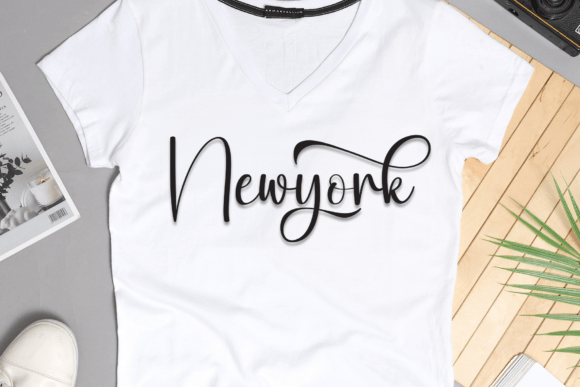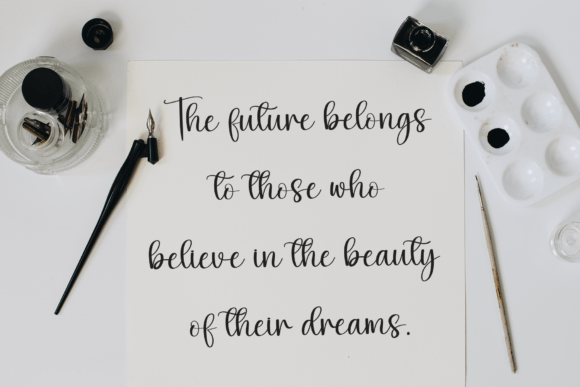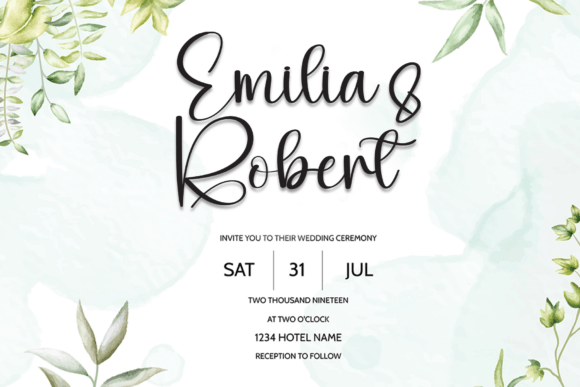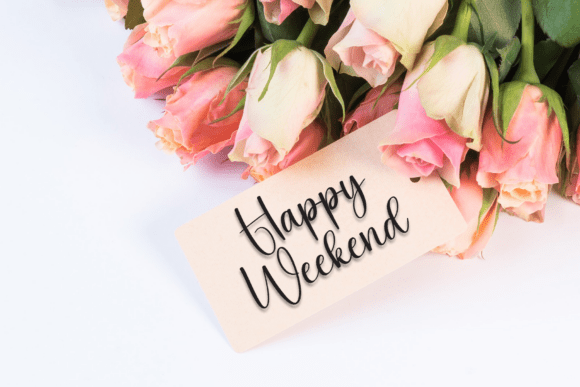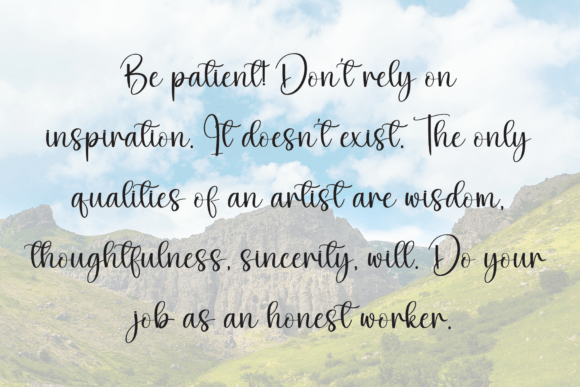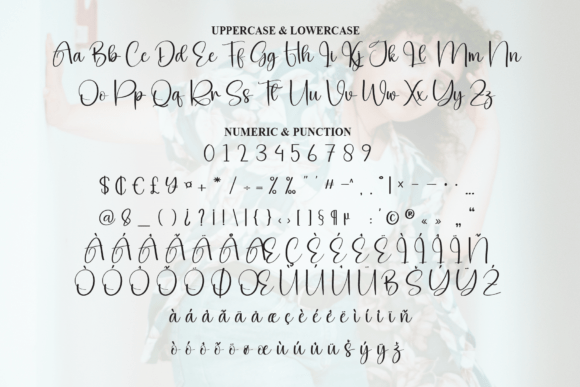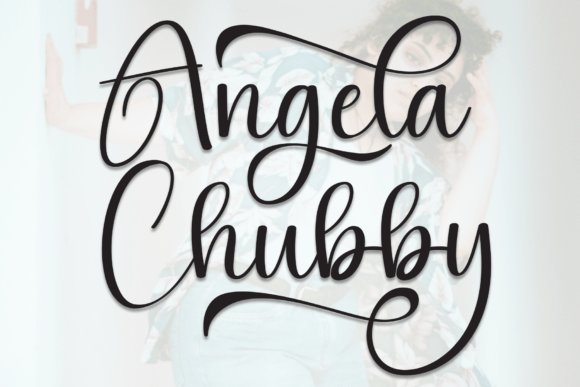
Discover the Elegance of Angela Chubby Font: A Perfect Choice for Designers and Crafters
In the world of typography, fonts play a crucial role in conveying the tone and personality of a brand, product, or message. Among the numerous fonts available, Angela Chubby stands out as a unique and captivating script font that has gained popularity among designers and crafters. In this article, we’ll explore the features, benefits, and uses of Angela Chubby Font, and why it’s an excellent choice for various design projects.
What is Angela Chubby Font?
Angela Chubby is a beautiful script font characterized by its elegant loops, clean lines, and modern style. Its delicate lines and flowing curves create a soft, sophisticated look that is perfect for designs that require a touch of femininity and elegance. The font’s unique blend of timeless charm and simplicity makes it an excellent choice for a wide range of applications, from branding and wedding invitations to social media posts and product packaging.
Key Features of Angela Chubby Font
- Elegant Loops and Curves: Angela Chubby’s script font features beautiful, flowing loops and curves that add a touch of sophistication to any design.
- Clean and Modern Style: The font’s clean lines and modern style ensure that it remains legible and stylish, even at smaller font sizes.
- Feminine and Delicate: Angela Chubby’s delicate lines and soft curves make it perfect for designs that require a feminine touch.
- Versatile: The font’s versatility makes it suitable for a wide range of applications, from digital designs to print materials.
Uses of Angela Chubby Font
Angela Chubby Font is an excellent choice for various design projects, including:
- Branding: Use Angela Chubby to create a unique and memorable brand identity that reflects your company’s values and personality.
- Wedding Invitations: The font’s elegant and sophisticated style makes it perfect for wedding invitations, save-the-date cards, and other wedding-related designs.
- Social Media Posts: Add a touch of elegance to your social media posts with Angela Chubby, making them stand out in a crowded feed.
- Feminine Product Packaging: The font’s delicate and feminine style makes it ideal for product packaging, particularly for brands that cater to a female audience.
Benefits of Using Angela Chubby Font
By choosing Angela Chubby Font for your design projects, you can enjoy several benefits, including:
- Unique and Memorable: Angela Chubby’s distinctive style ensures that your designs stand out and remain memorable.
- Easy to Read: The font’s clean lines and simple style make it easy to read, even at smaller font sizes.
- Time-Saving: With Angela Chubby, you can create professional-looking designs quickly and efficiently, saving you time and effort.
- Scalable: The font is highly scalable, making it suitable for various design applications, from business cards to billboards.
Tips for Using Angela Chubby Font Effectively
To get the most out of Angela Chubby Font, follow these tips:
- Pair with Complementary Fonts: Combine Angela Chubby with complementary fonts to create a harmonious and visually appealing design.
- Use for Headings and Titles: The font’s elegant style makes it perfect for headings and titles, adding a touch of sophistication to your designs.
- Experiment with Colors: Try different colors and color combinations to find the perfect match for your design and brand.
In conclusion, Angela Chubby Font is a beautiful and versatile script font that offers a unique blend of elegance, simplicity, and sophistication. Its delicate lines, flowing curves, and clean style make it perfect for a wide range of design applications, from branding and wedding invitations to social media posts and product packaging. By incorporating Angela Chubby into your design projects, you can create stunning and memorable designs that leave a lasting impression.